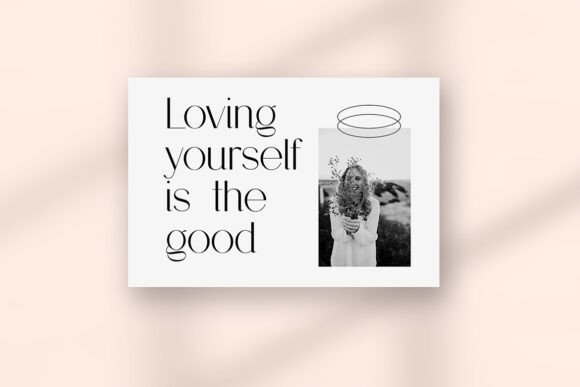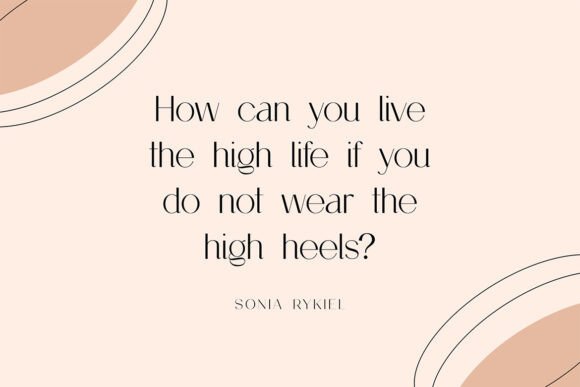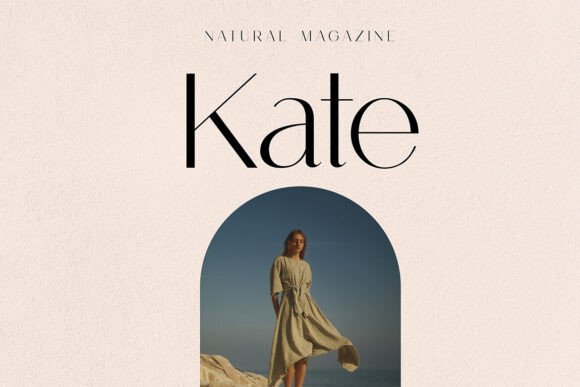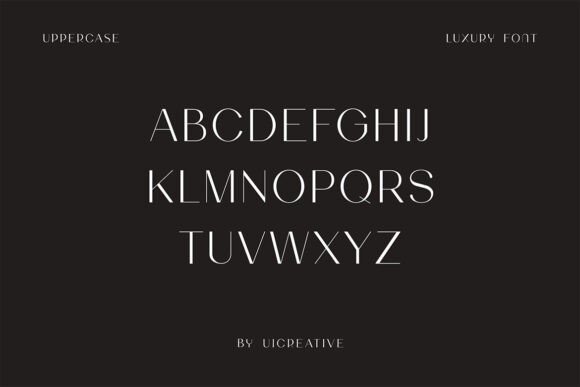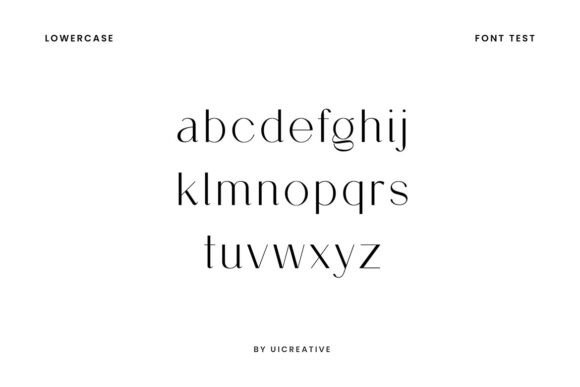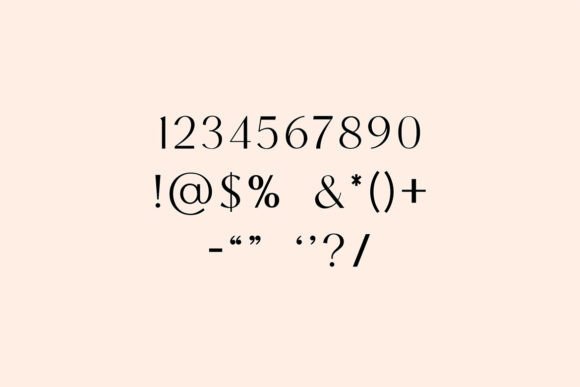
The Perfect Canvas for Your Creations
Imagine yourself in the midst of a design project, pouring over the perfect combination of colors, shapes, and typography to bring your vision to life. And then, it hits you – the font. The one that elevates your entire design from good to great. For many designers, finding that elusive font is a challenge they face time and time again.
Enter Bonnevarc Font, a stunning sans serif font that brings a touch of elegance and sophistication to any project. With its delicate yet balanced design, Bonnevarc Font is the perfect choice for designers seeking to add a hint of refinement to their work. Whether you’re working on a branding project, a website, or a marketing campaign, Bonnevarc Font is the ideal tool to help you create something truly special.
So, what sets Bonnevarc Font apart from the rest? Its versatility and adaptability, making it a valuable asset for designers of all levels.
- Unique Characteristics: Bonnevarc Font features a unique blend of modern and classic elements, with subtle rounded edges and a balanced x-height, making it suitable for a wide range of design applications.
Bonnevarc Font Review
Overall, I have mixed feelings about the Bonnevarc font. Let’s start with the good stuff ✨.
- It has a unique, elegant aesthetic that’s perfect for high-end branding or sophisticated designs.
- The font’s lines and curves are smooth, making it easy to read, even at small sizes.
- The font family includes multiple weights and styles, offering plenty of flexibility for creative projects.
Now, let’s talk about the limitations ⚠️.
- The font may be too ornate for some designs, potentially overwhelming the content.
- Some letters, like ‘q’ and ‘p’, can be difficult to distinguish from one another.
- The font may not be suitable for body text or large blocks of text, as it can become tiring to read.
In my opinion, the Bonnevarc font is best used as an accent font or for highlighting specific elements in a design. It’s perfect for adding a touch of sophistication and elegance, but may not be the best choice for everyday text.
For optimal results, use Bonnevarc font in headings and titles to create a visually appealing contrast with body text.
Use it in modern and minimalist designs, such as logos, business cards, and social media graphics.
Experiment with different font sizes and colors to create unique visual effects.
Alternatives to Bonnevarc Font for Designers
Montserrat is a sans-serif font designed by Julieta Ulanovsky. It is a great alternative to Bonnevarc Font for designers who want a clean and modern look. Montserrat is perfect for use in digital interfaces, logos, and advertising materials.
Compared to Bonnevarc Font, Montserrat has a more geometric and modern feel, while Bonnevarc Font has a more elegant and refined look. Montserrat is ideal for use in bold and eye-catching designs, whereas Bonnevarc Font is better suited for more sophisticated and elegant designs.
Lato is a sans-serif font designed by Łukasz Dziedzic. It is a versatile font that works well in a variety of designs, from digital interfaces to print materials. Lato is a great alternative to Bonnevarc Font for designers who want a clean and readable font.